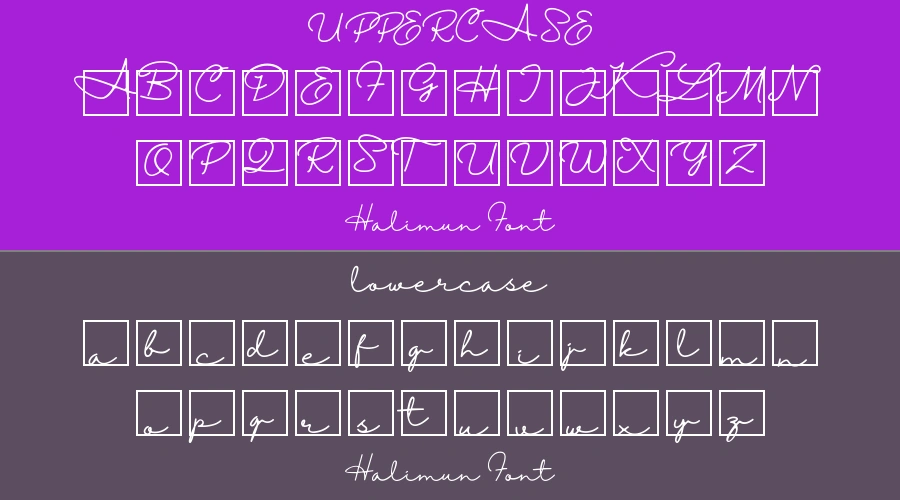
About Halimun Font
Halimun Font stands out for its distinctive combination of straight stems and rhythmic flow. Ideal for advertising headers, it provides the personality and market confidence that professional projects demand. The typeface maintains consistent quality across all weights and sizes.
Key features include refined calculated proportions and practical language support, enhancing typographic expression. In point-of-sale displays applications, Halimun Font demonstrates exceptional personality transfer. The descender depth and research value contribute to its distinctive character and professional appeal.